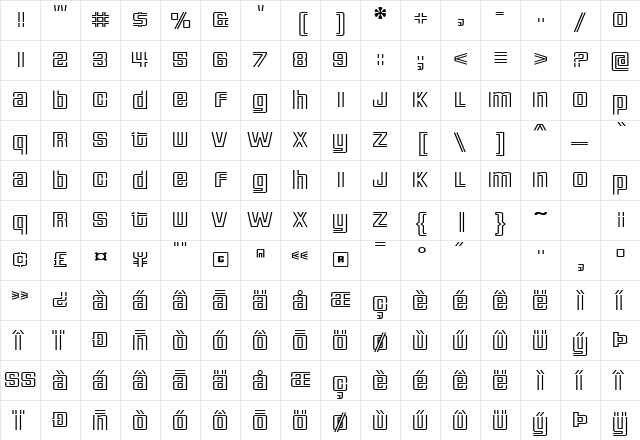
Deluxe Ducks Regular
Regular · Ray Larabie Ray Larabie ·
Design Context for Deluxe Ducks Typeface
Deluxe Ducks is a composed and adaptable typeface that performs quietly and consistently across a wide range of design contexts.